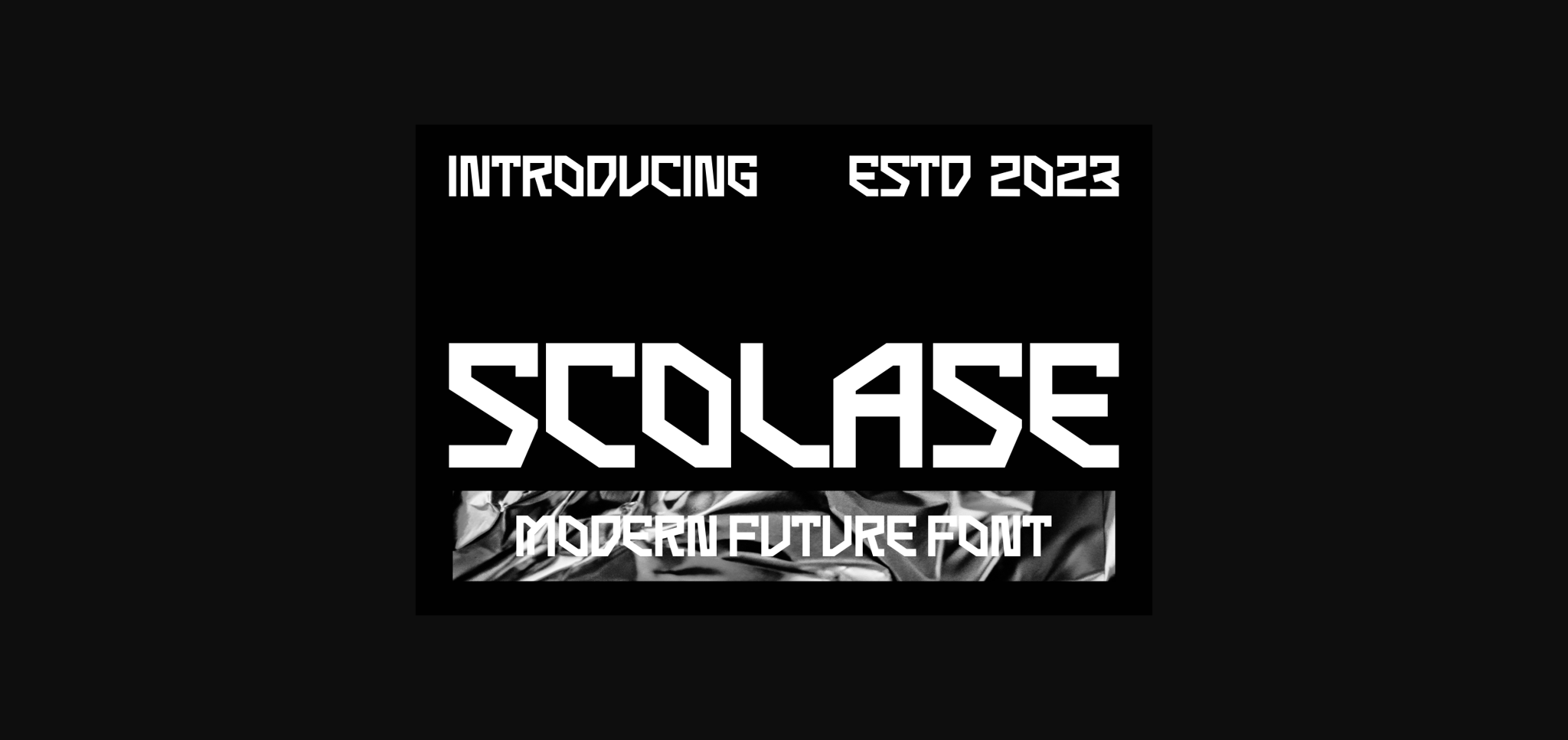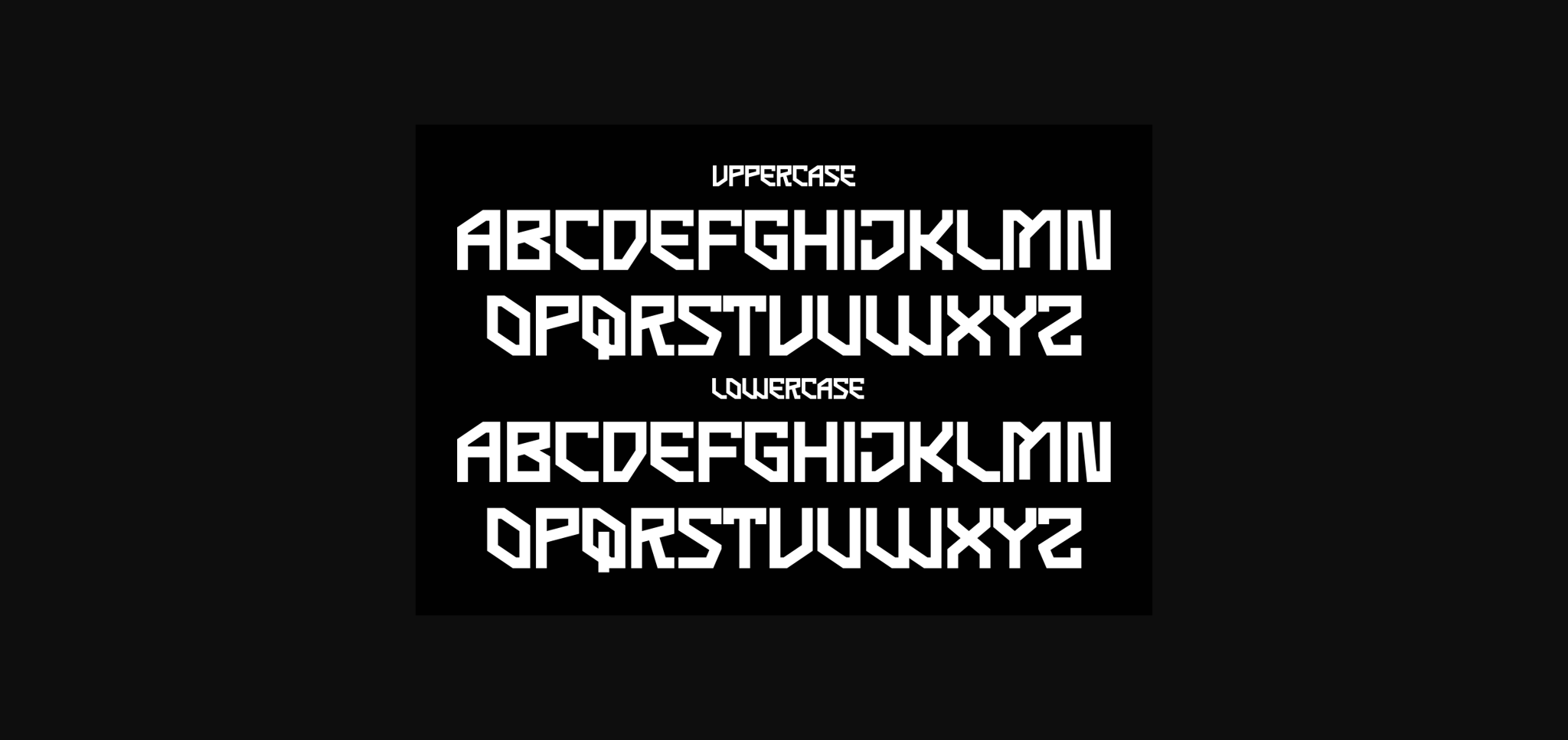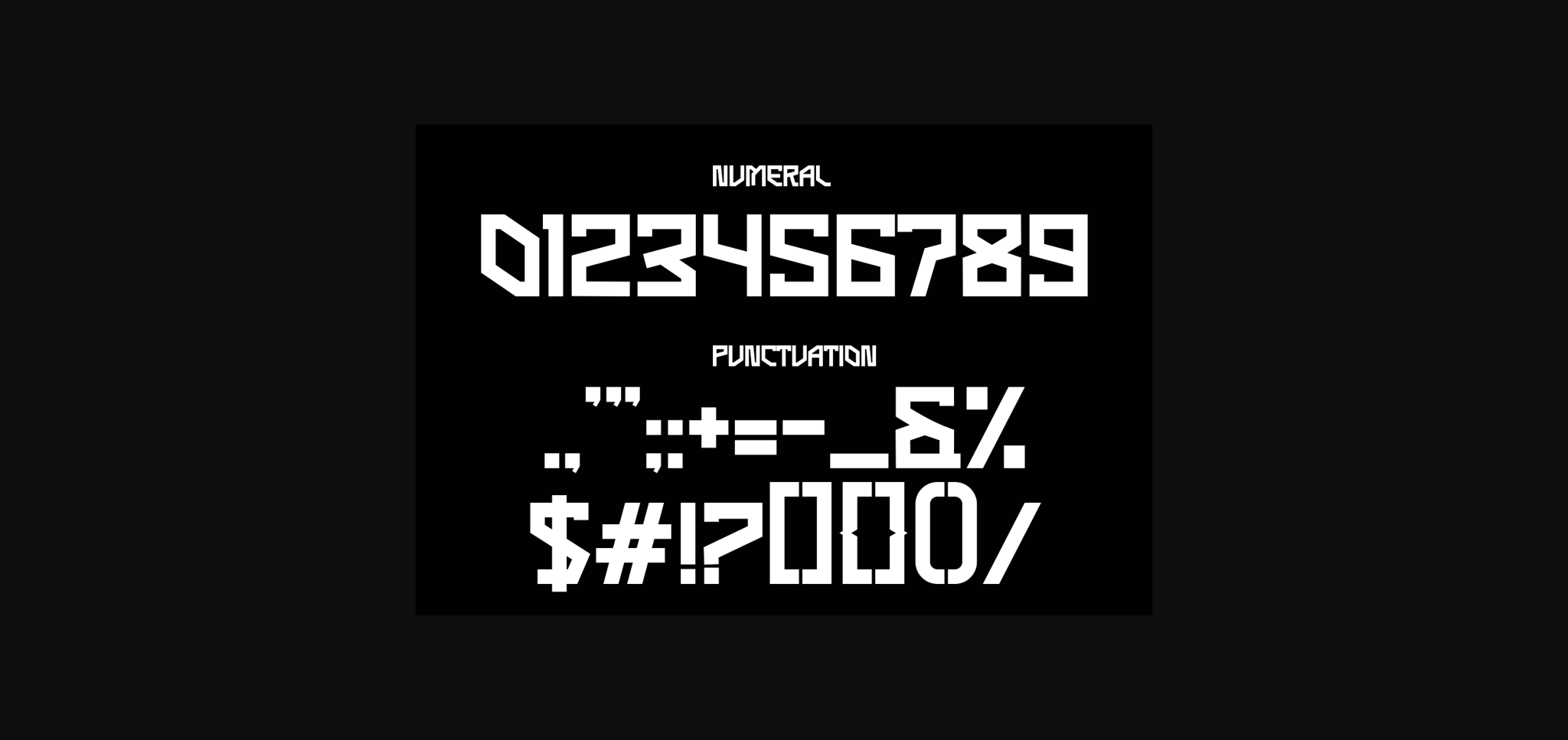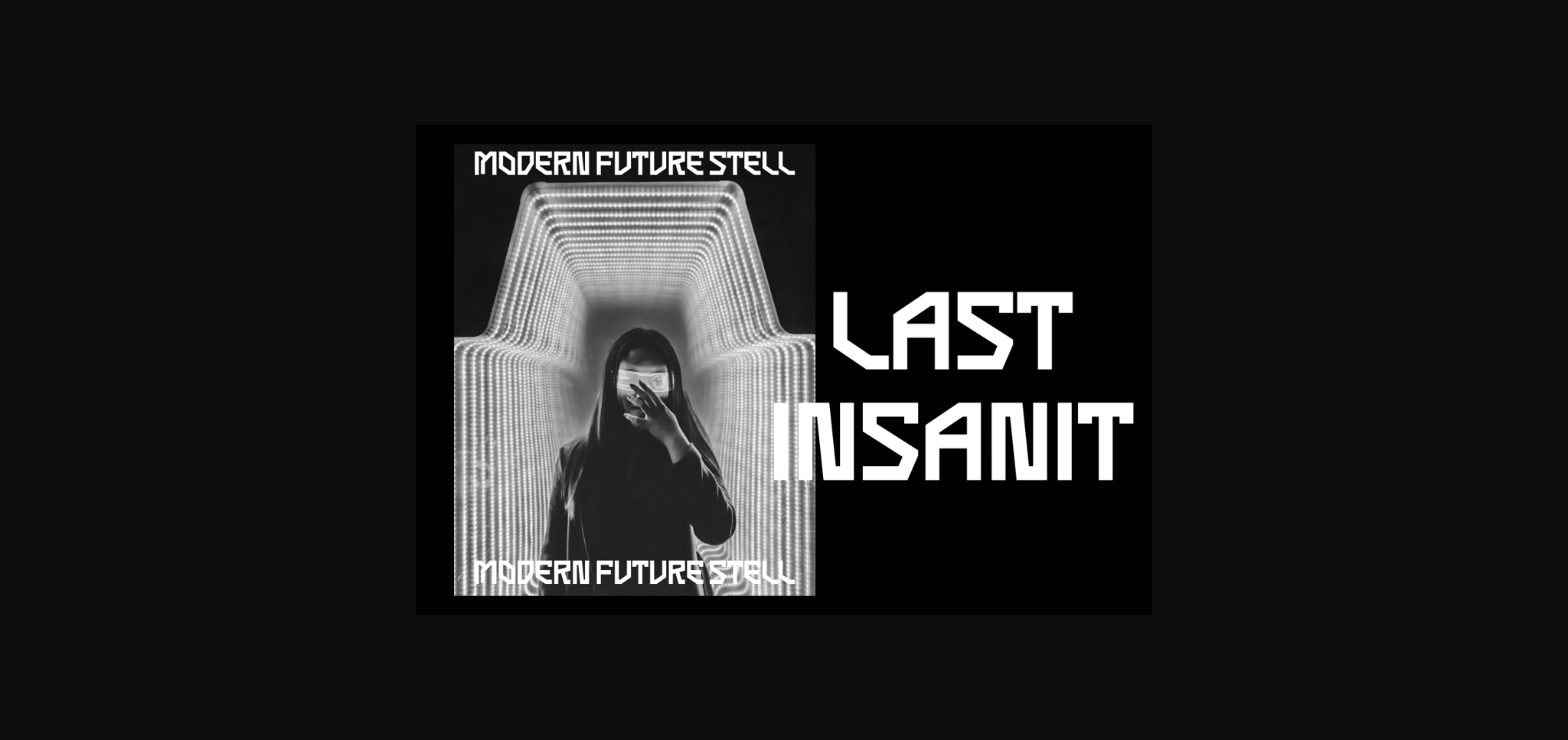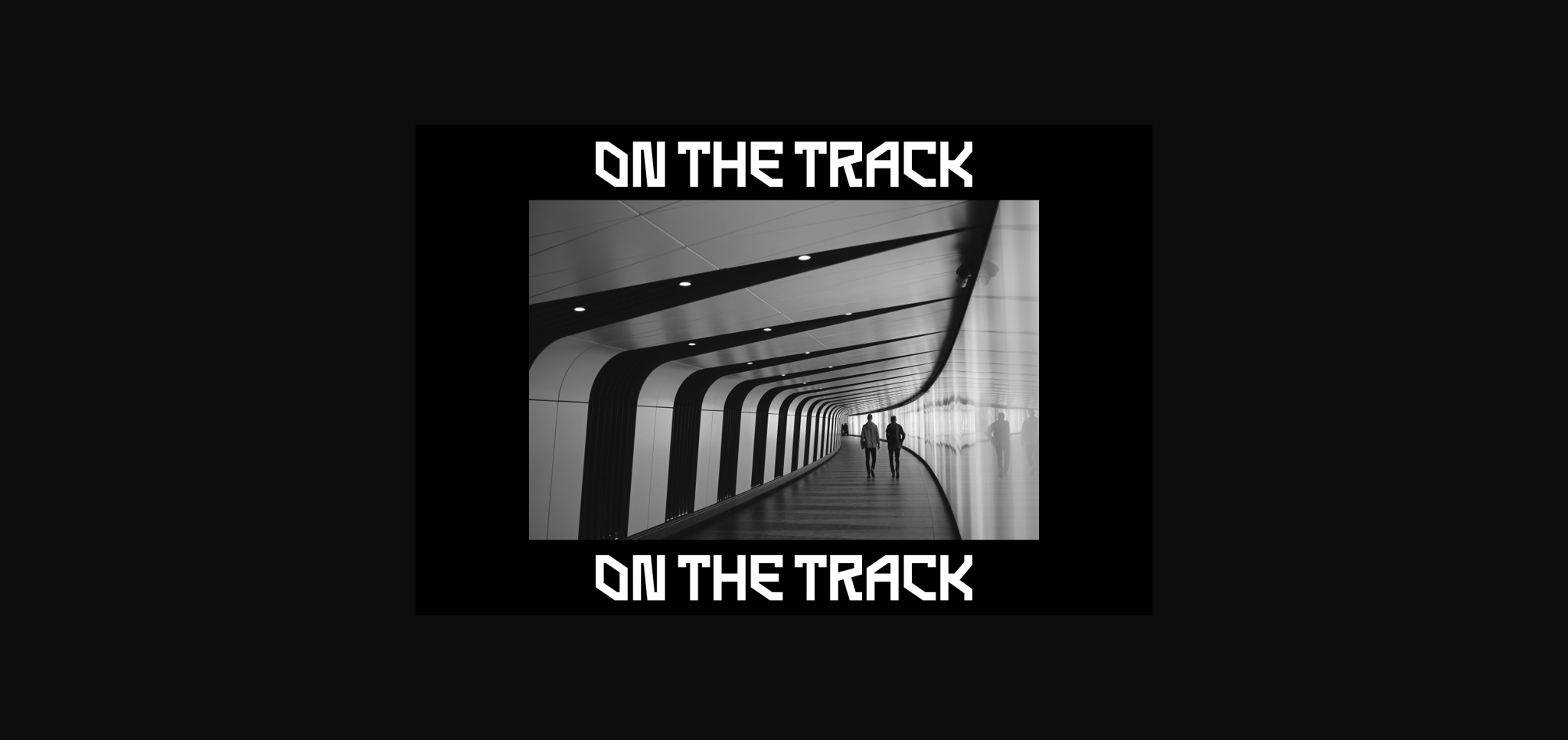
About Scolase Font
**SCOLASE** is an authentic and unique modern futuristic font that is perfect for professional and product branding needs. This font is suitable for any branding project such as quotes, logos, blog headers, posters, ribbons, letters, invitations, stationery, etc. It is designed to be versatile and flexible and can be used on a variety of projects and mediums.